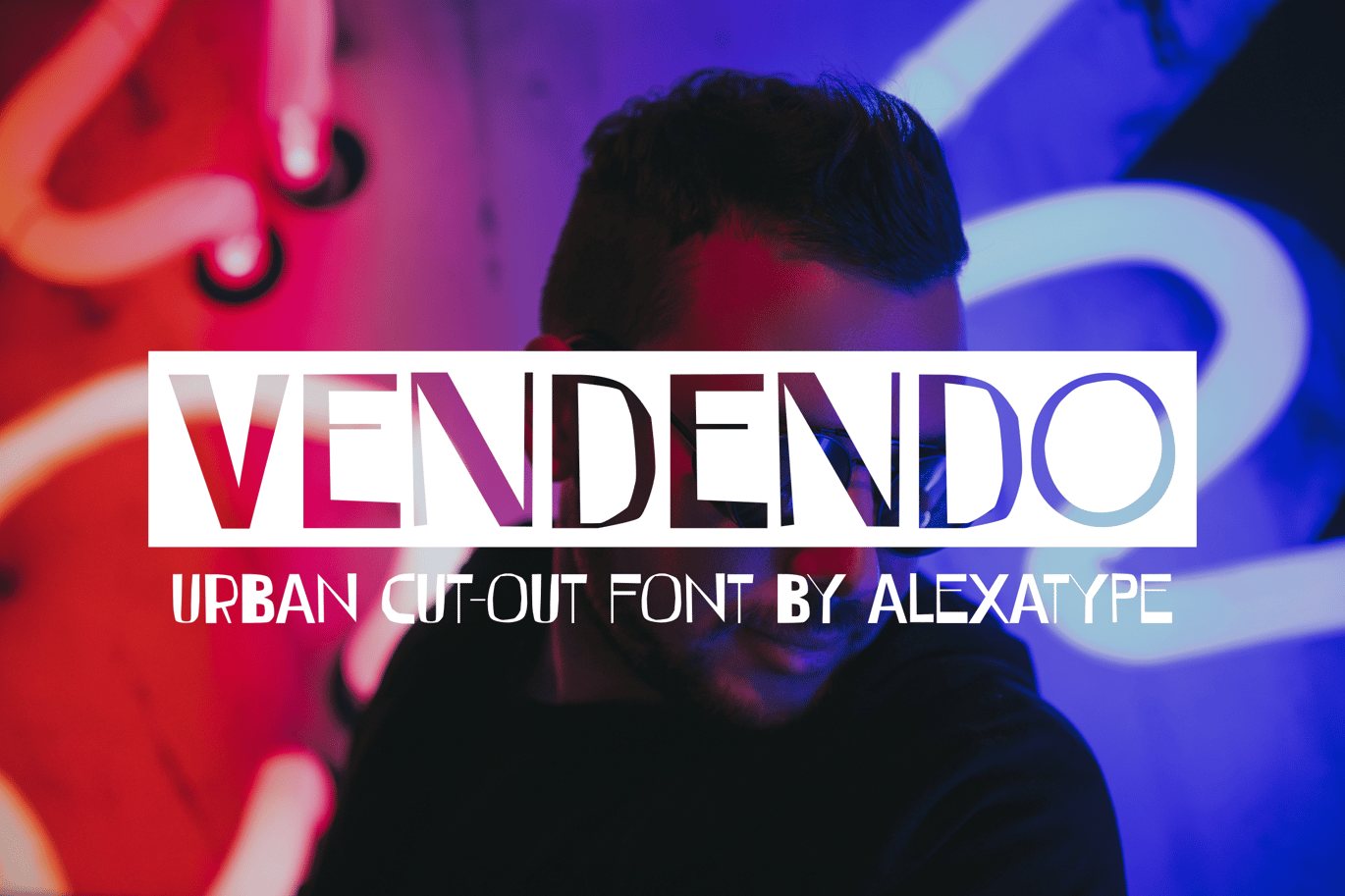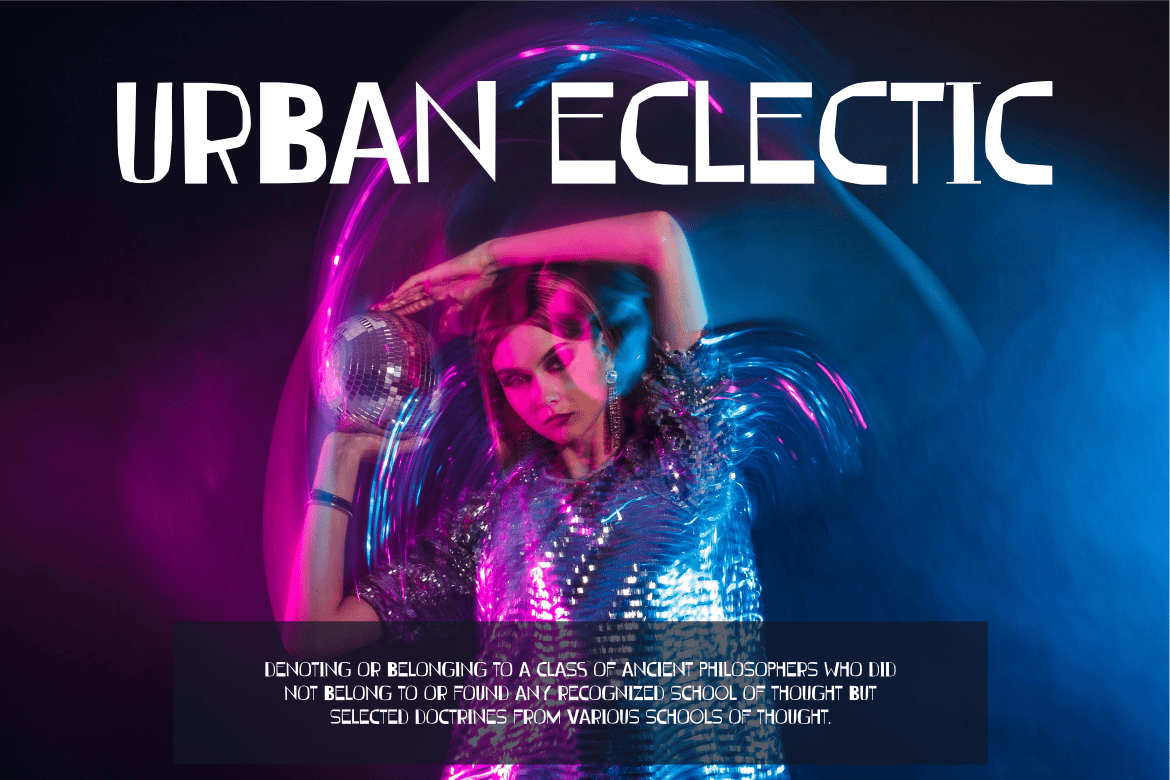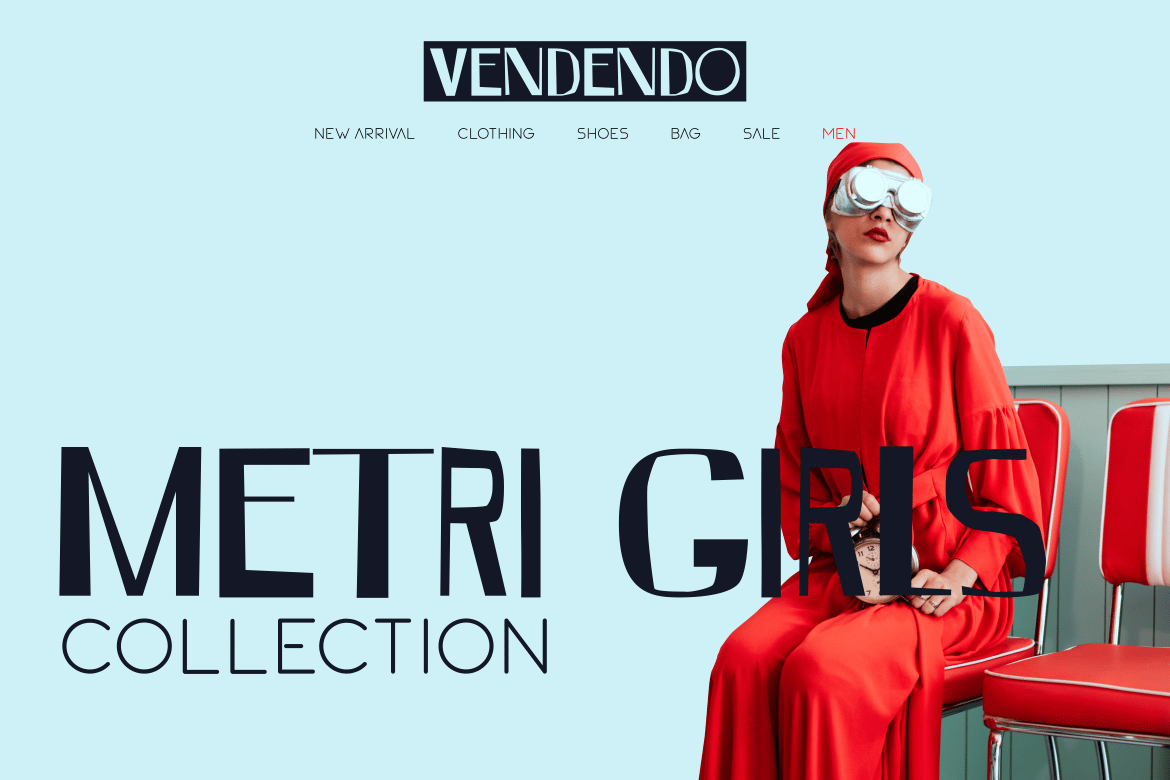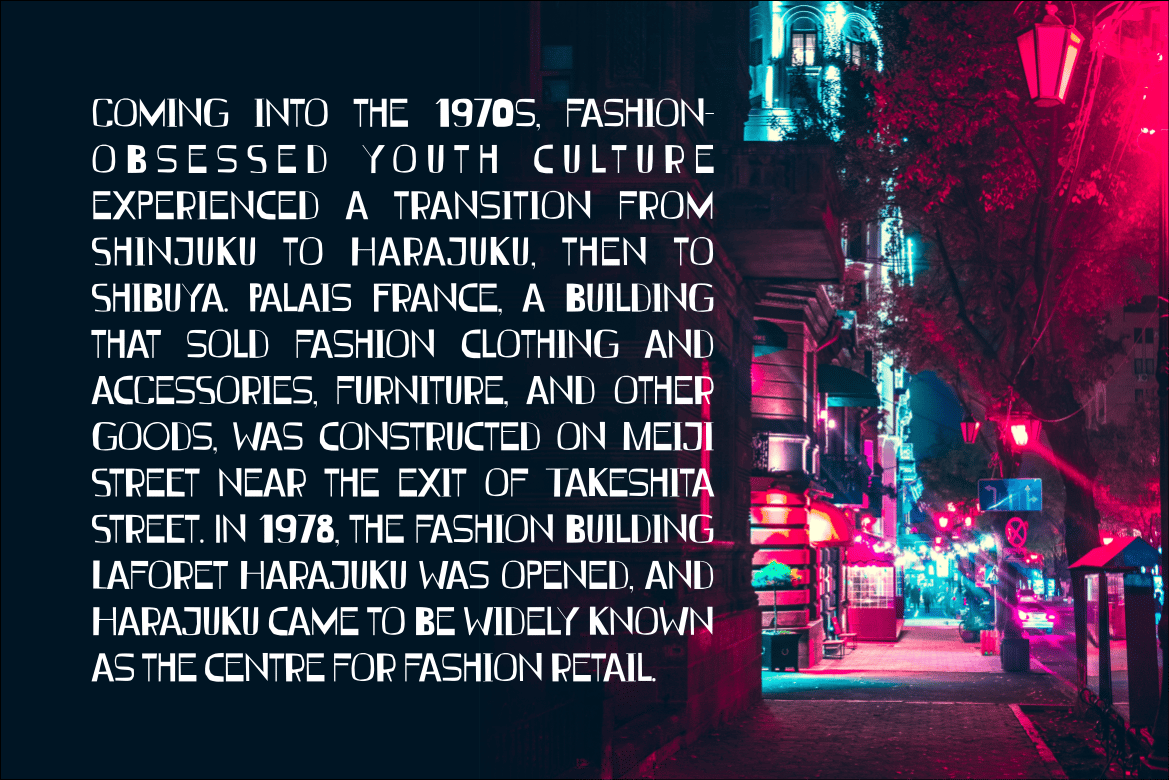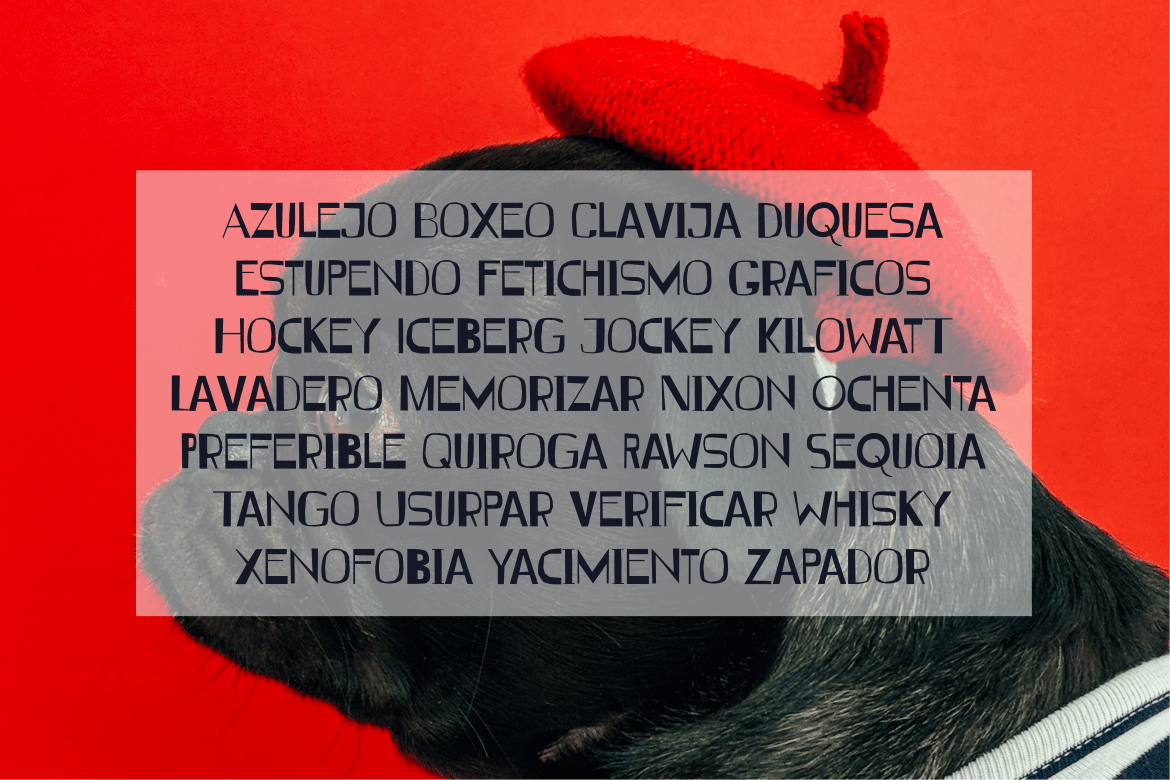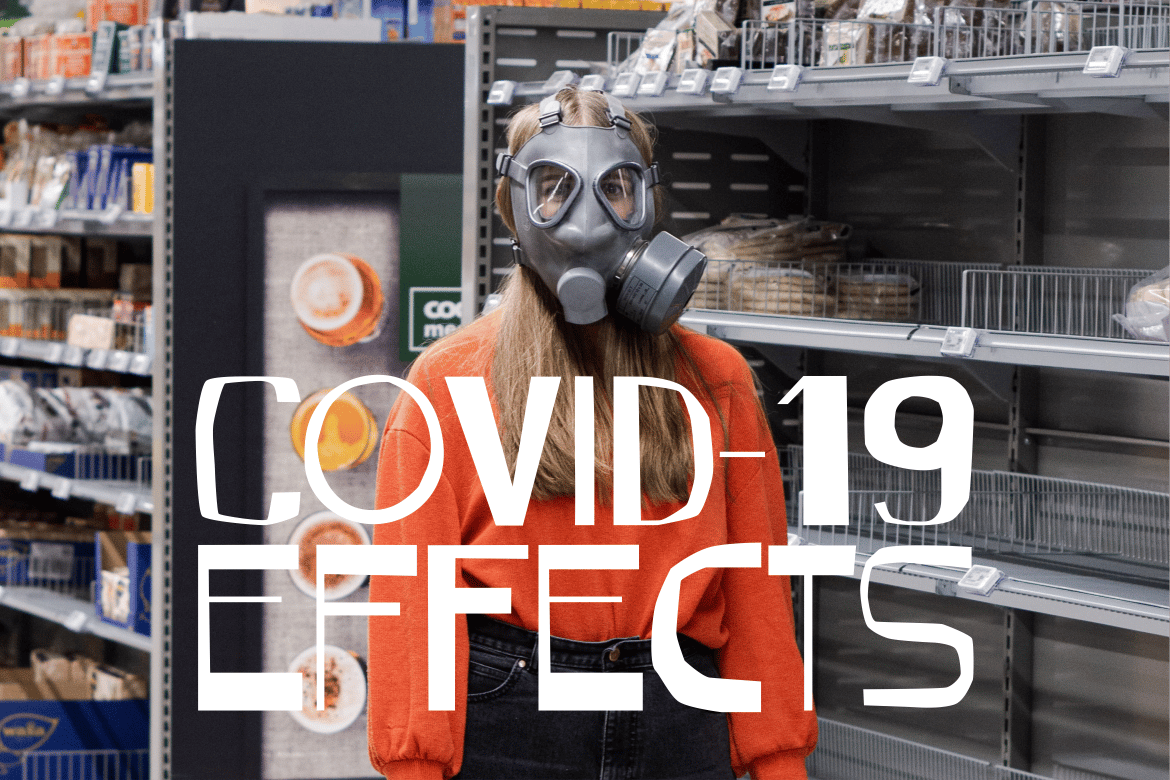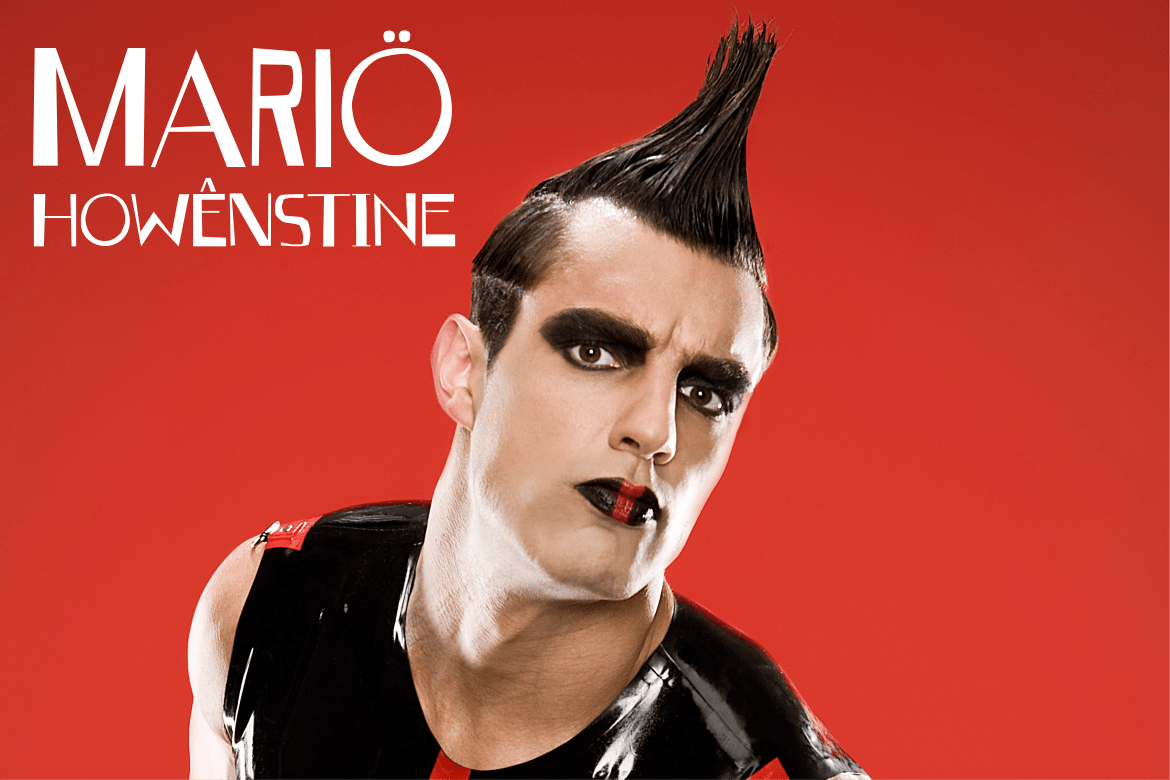
The Edgy, Futuristic Urban Font – Vendendo
Vendendo is a sharp, high-tech display font built for bold branding, futuristic editorials, and cutting-edge urban visuals. With its sleek geometric cuts and dynamic structure, this font is designed to bring cyberpunk energy and street-style attitude to fashion campaigns, music promotions, and tech branding. Whether you’re working on club flyers, esports graphics, or neon-infused editorial layouts, Vendendo makes a statement of modern rebellion.
Key Features
- Futuristic & Edgy Aesthetic – Inspired by cyberpunk culture and modern typography.
- Dynamic & High-Impact Letterforms – Perfect for strong, attention-grabbing designs.
- Ideal for Digital & Print – Works seamlessly on posters, branding, and advertising.
- Versatile for Fashion, Music, and Tech – A stylish, forward-thinking font.
Vendendo is perfect for fashion-forward branding, futuristic tech visuals, and high-energy editorial design. Its cyber-inspired letterforms make it a go-to choice for music festivals, streetwear campaigns, and urban nightlife promotions. Whether you’re crafting bold esports visuals, dynamic club posters, or striking social media content, Vendendo delivers a modern, rebellious feel that stands out in any environment.